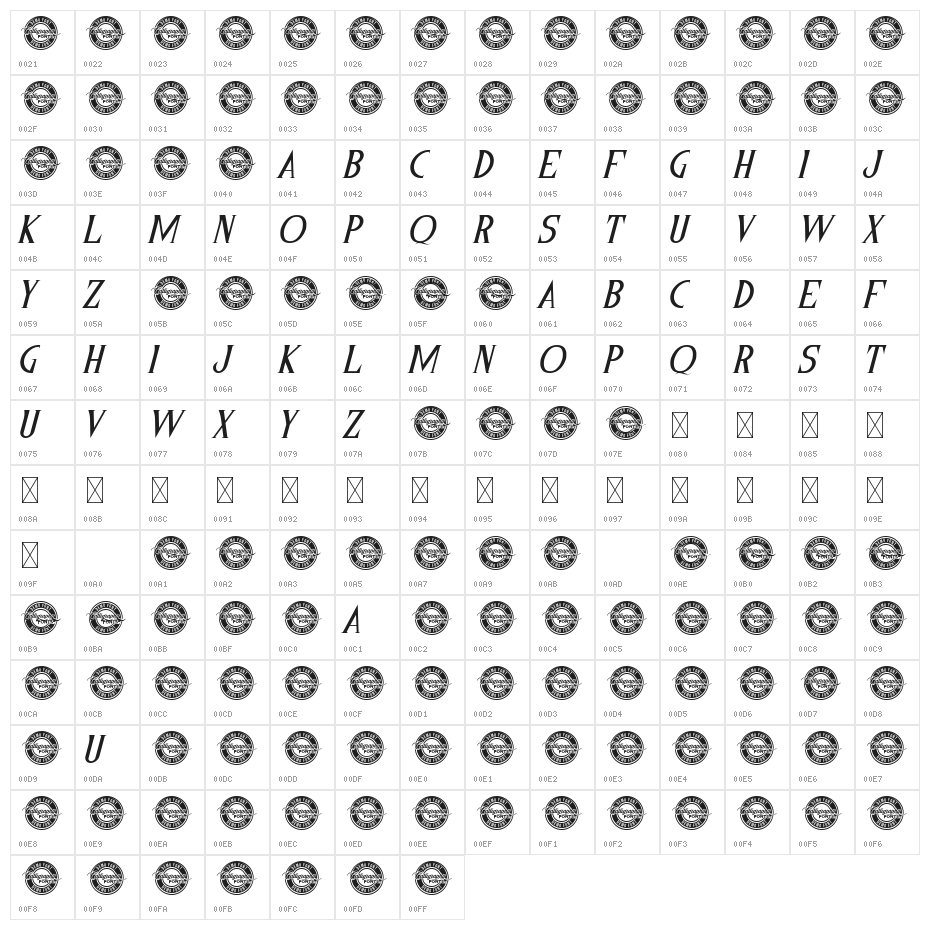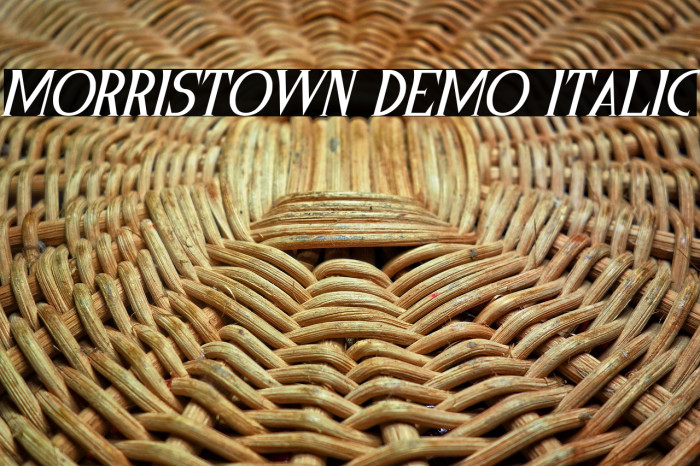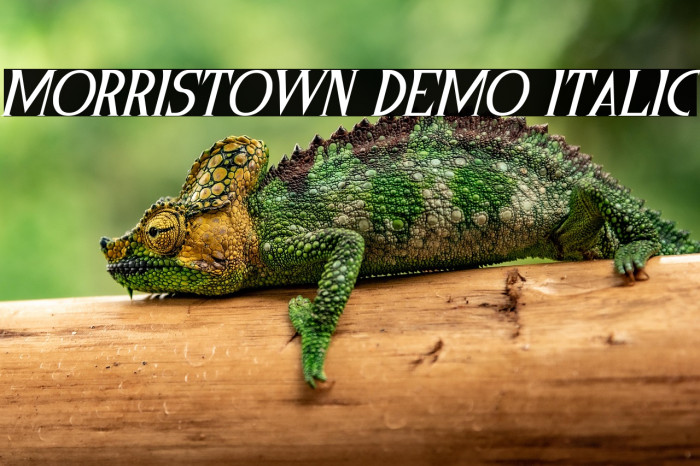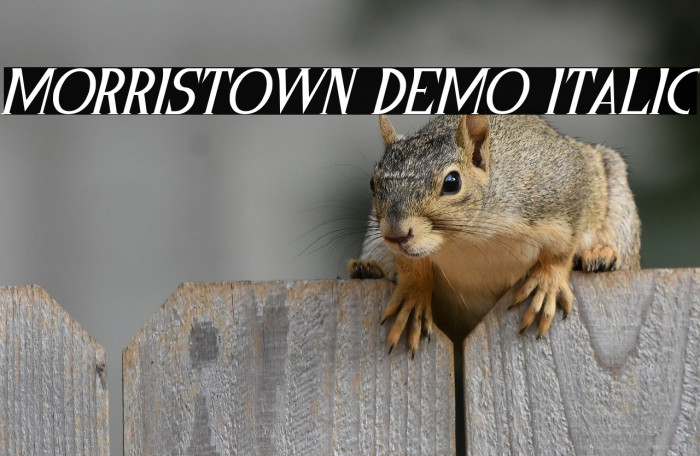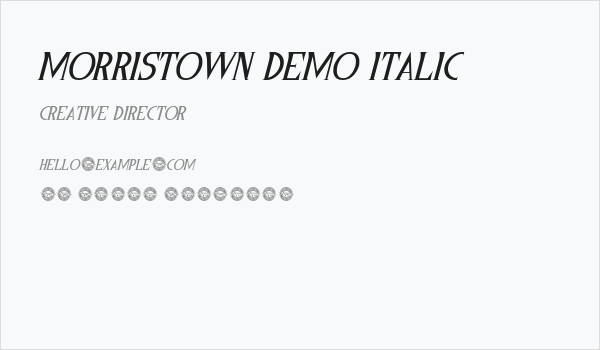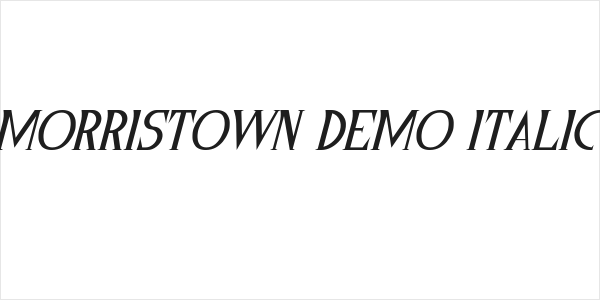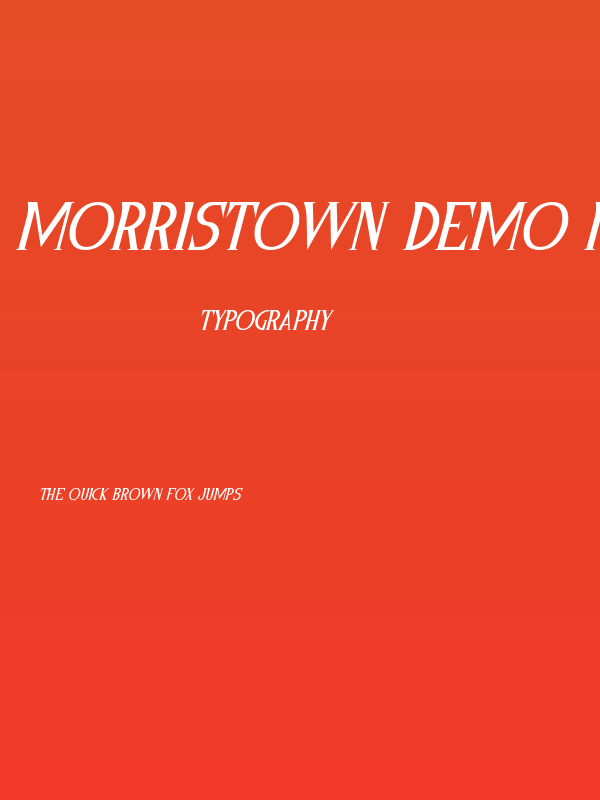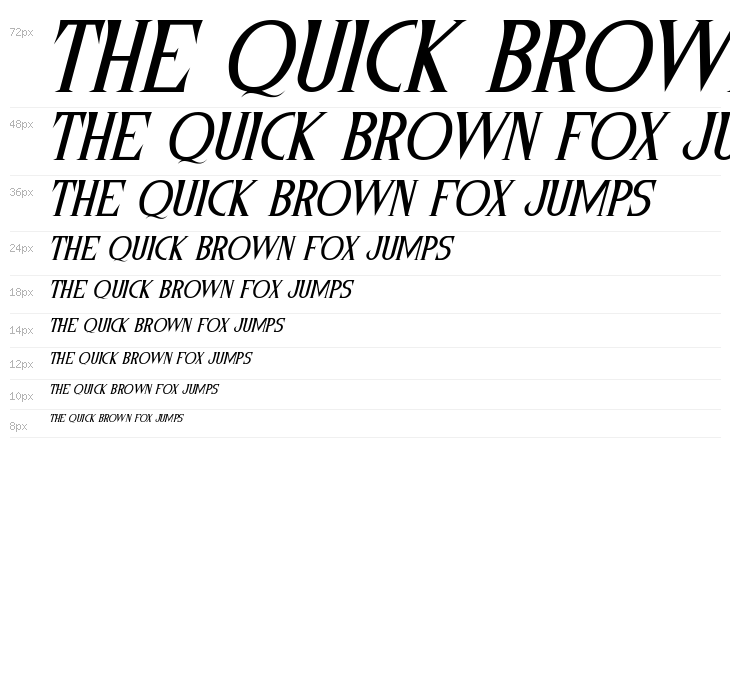
Morristown Demo Italic Font
Morristown Demo Italic Description
This font features an elegant and sophisticated italic style, characterized by its smooth, flowing lines and sharp serifs. The letters are slightly condensed, giving it a refined and polished appearance. The uppercase letters exhibit a classic formality, while the lowercase letters maintain a consistent slant, enhancing the overall fluidity. The numerals are well-proportioned, aligning seamlessly with the alphabetic characters. Special characters are designed with the same attention to detail, ensuring a cohesive look across all glyphs. The font's high contrast between thick and thin strokes adds to its dramatic and stylish aesthetic, making it suitable for projects that require a touch of elegance and sophistication.